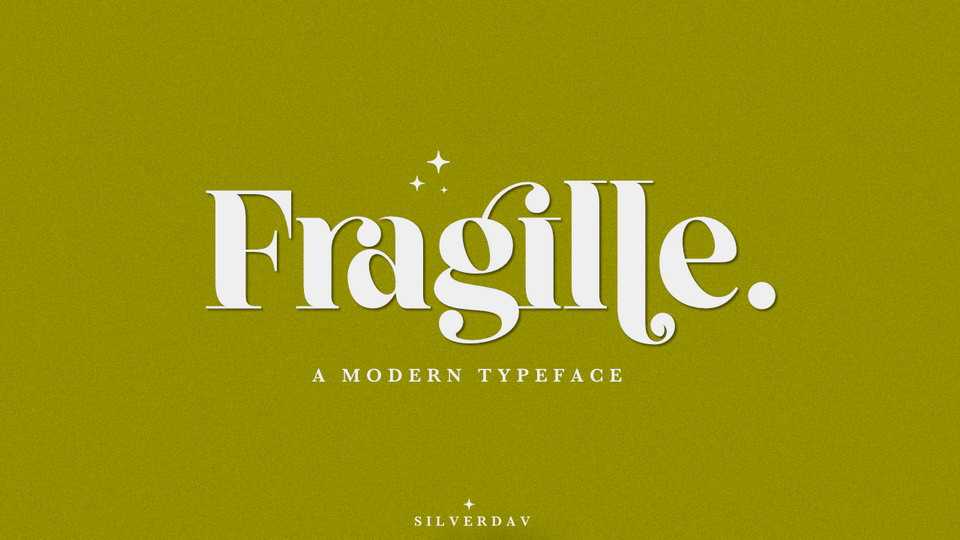
Download Fragille font, a modern serif typeface with its highly contrasting lines to use in headlines and projects of a large type. Fragille adds timeless beauty, heavenly curves and a classic look to any project.
Designer: Silverdav Studio